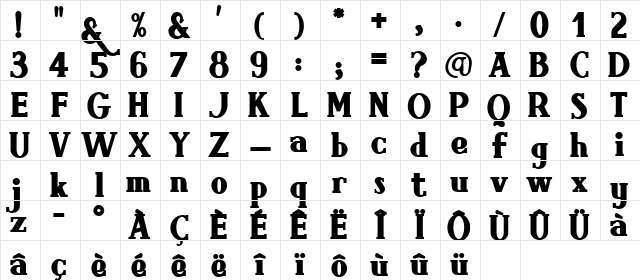
Brimborion Bold
Design Context for Brimborion
Brimborion is a composed and adaptable typeface that performs quietly and consistently across a wide range of design contexts. Its bold stroke weight gives it real presence on the page.
Pro Tip: Use Brimborion in both headline and body roles to test its range before committing to a single application.